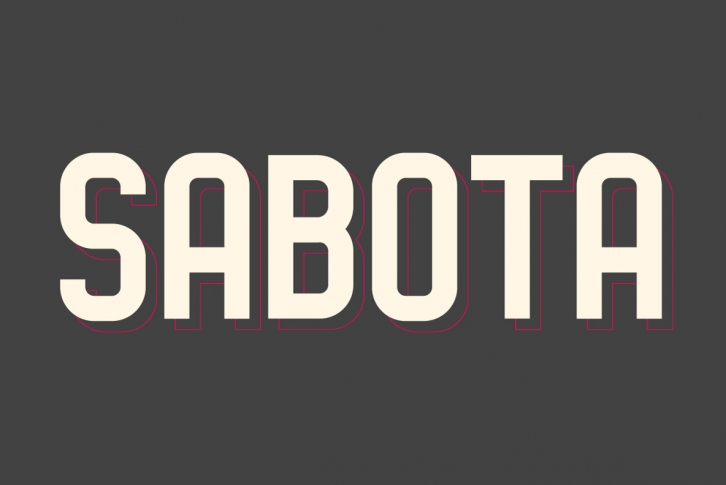
Sabota is a geometrically-founded monospace font, influenced by vintage lettering, and the weight and color of old theater marquees. It works best in short bursts or heavily stylized lines of type, and it's extremely receptive to bold treatments like layering, geometric overlays, and more.
Features like crossbars with varying heights, sharp left-leading arms, and round punctuation give Sabota its rhythm and solidify each word and sentence, leading the reader smoothly through your text.
Sabota also comes in an inline flavor, for quick and easy layering with the main font in any layout.